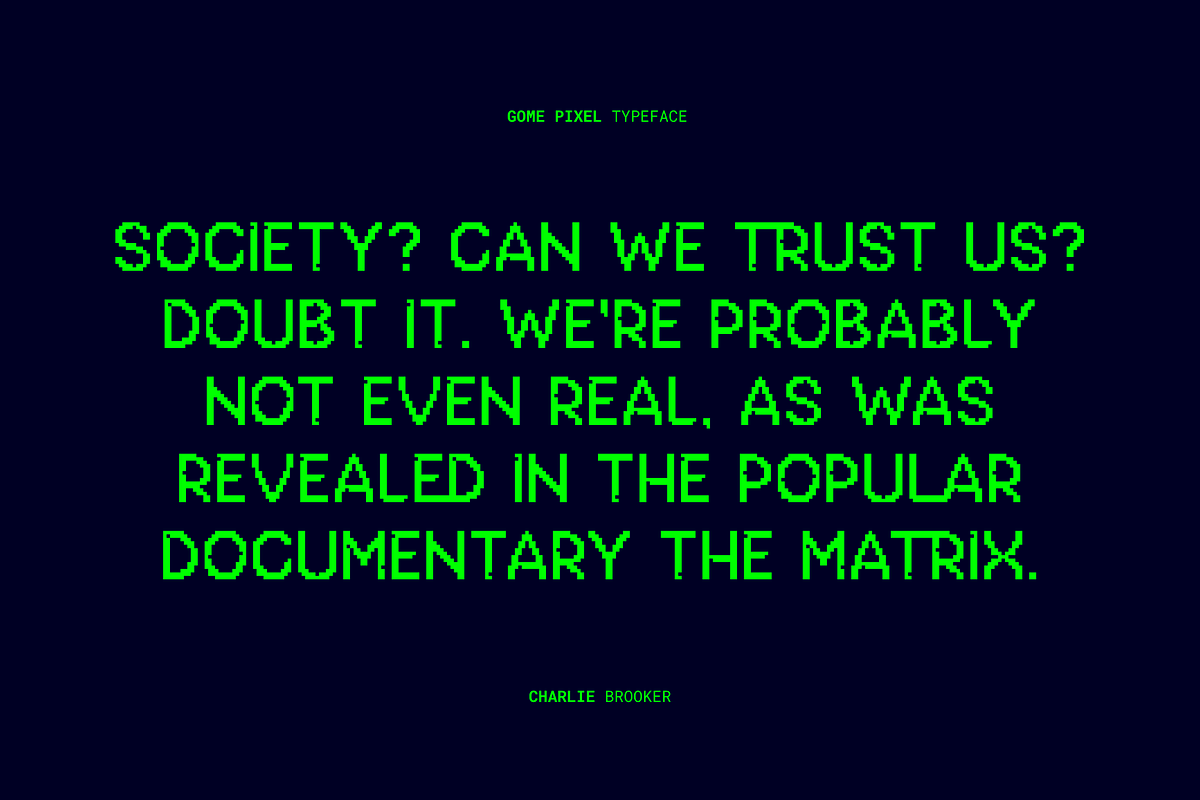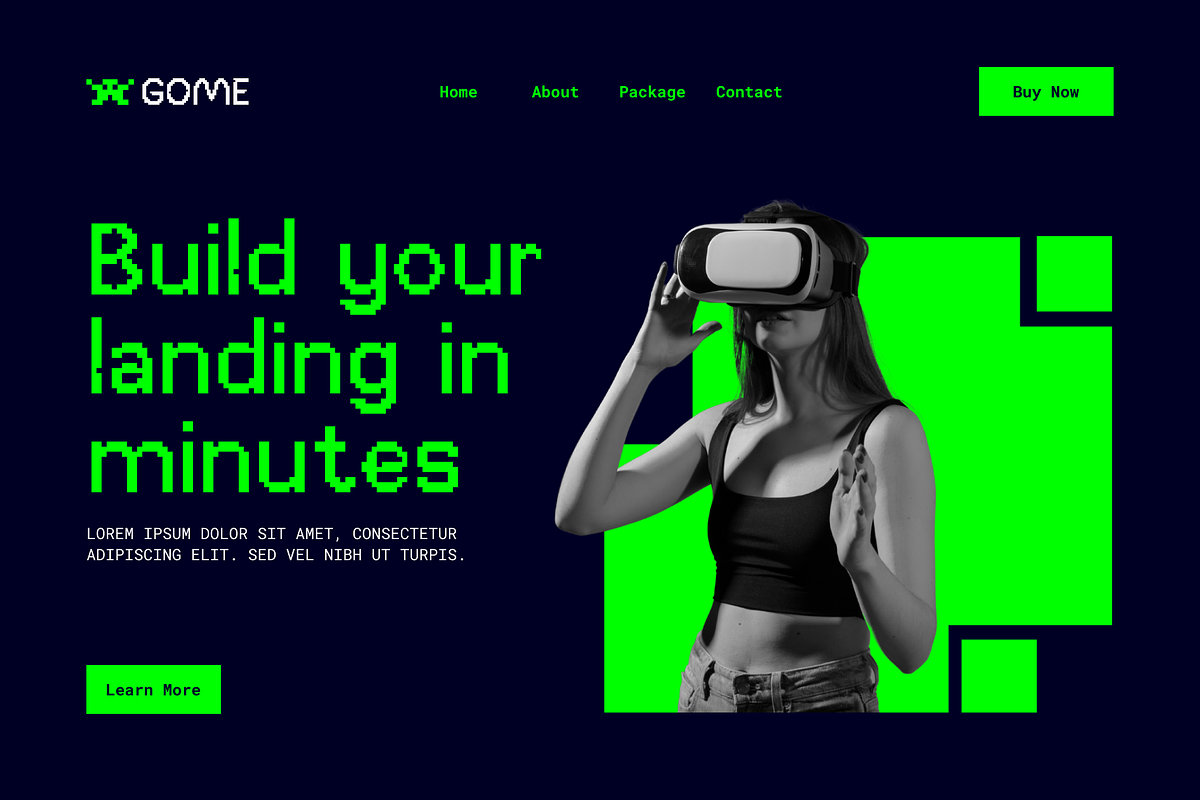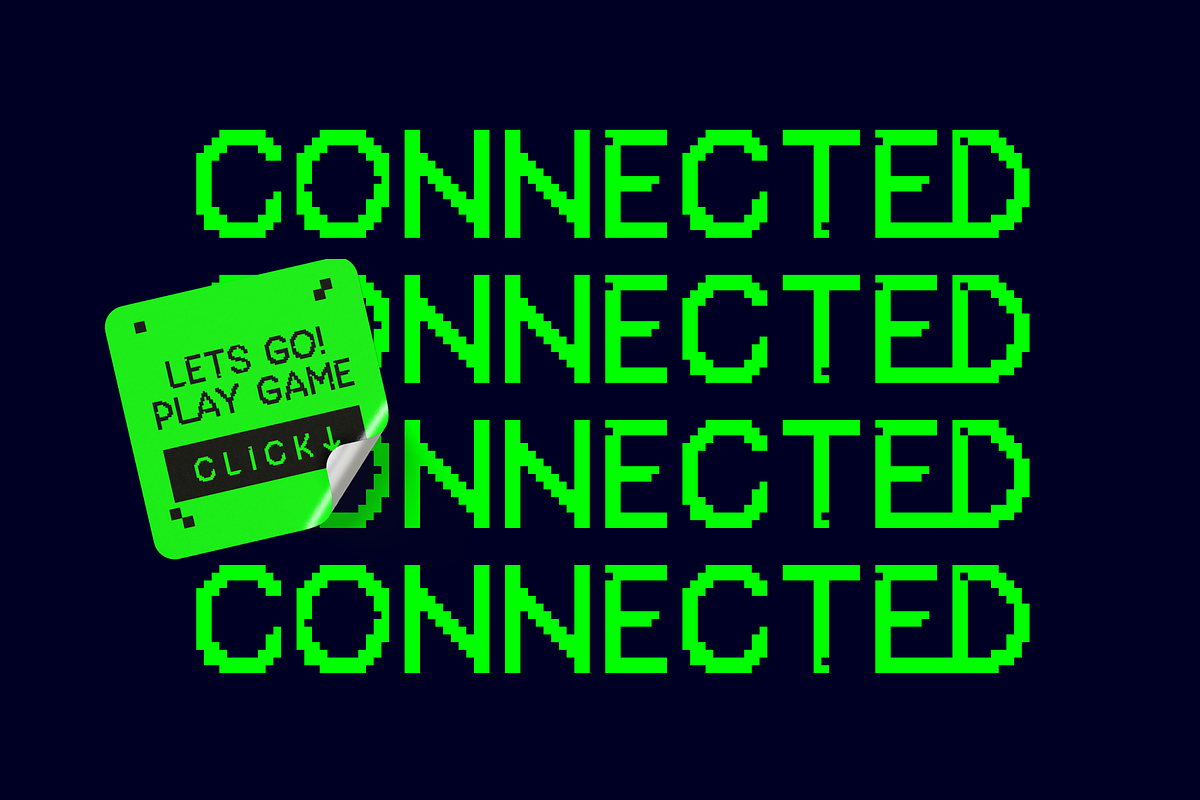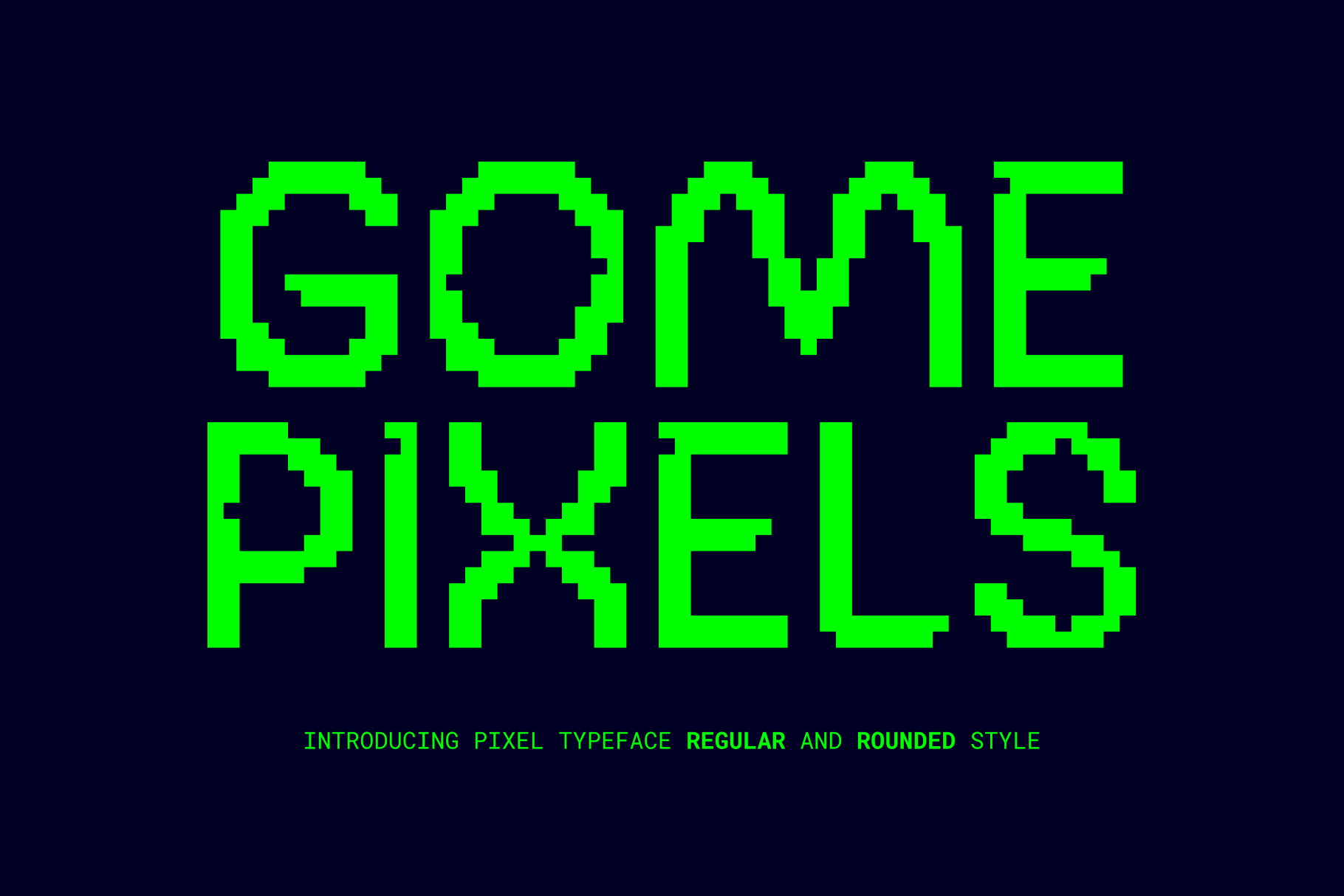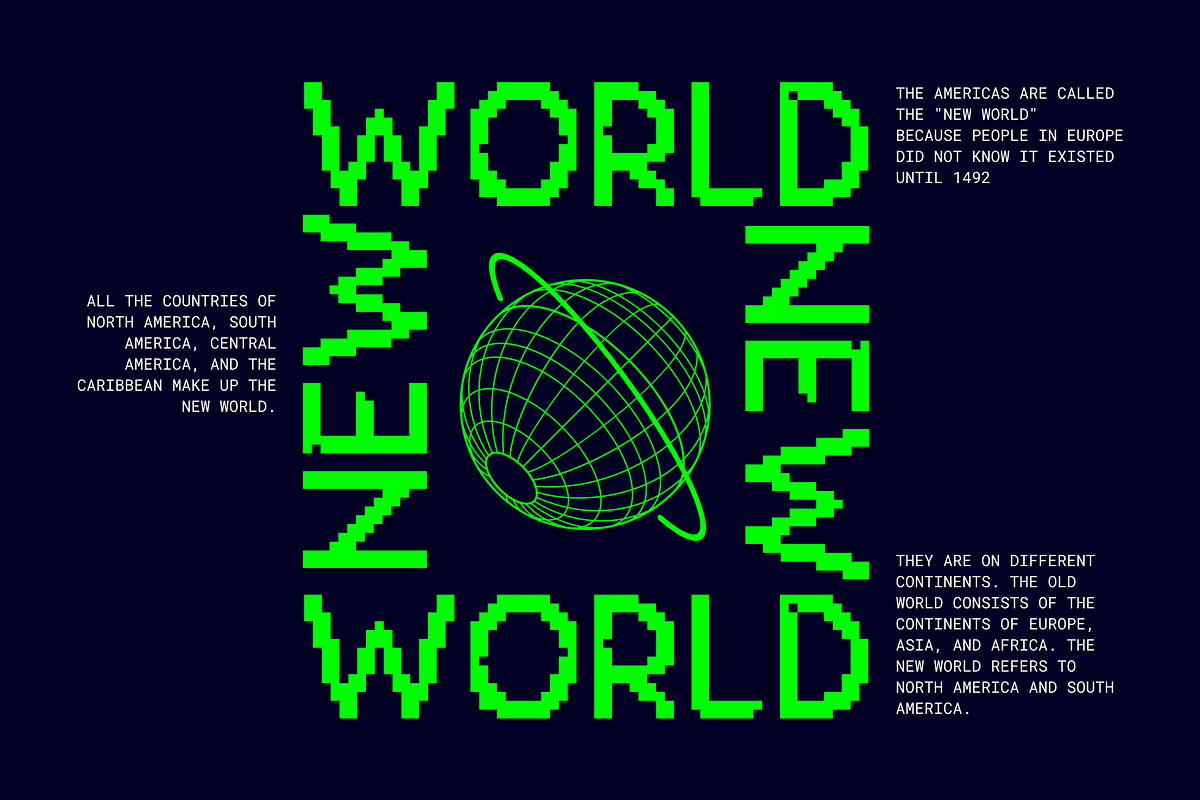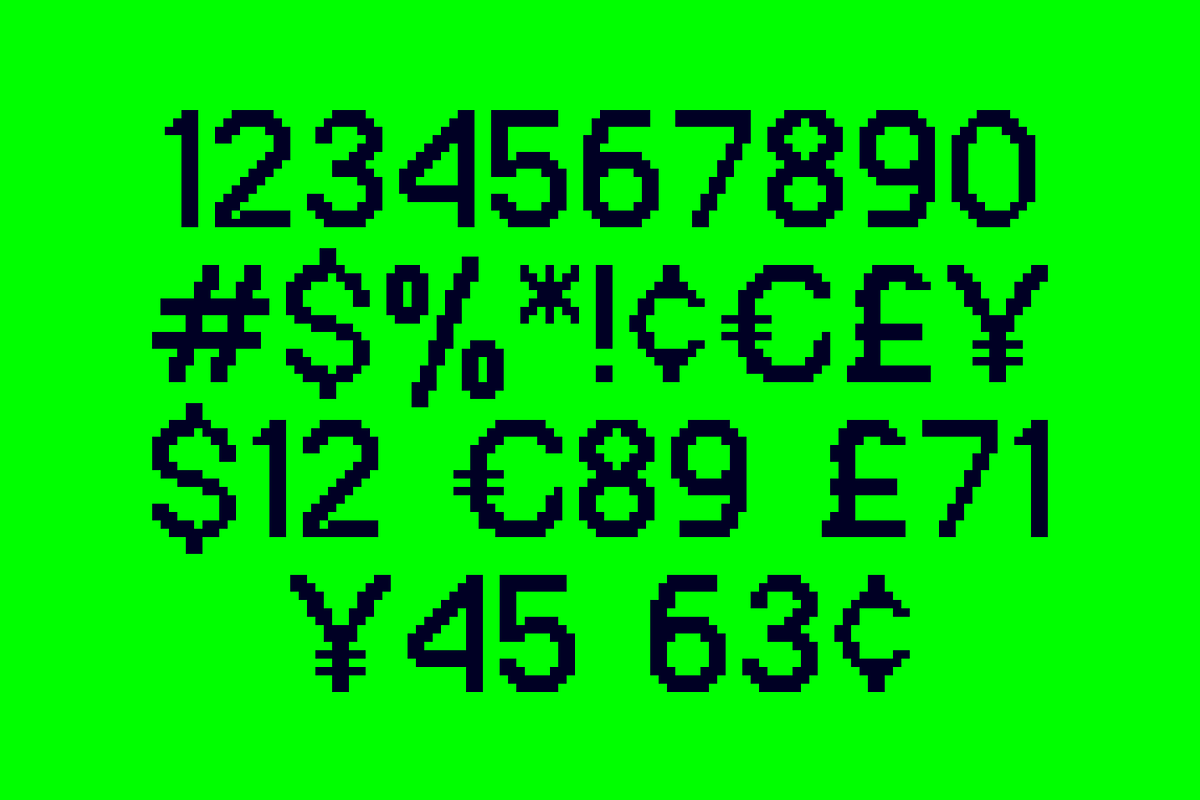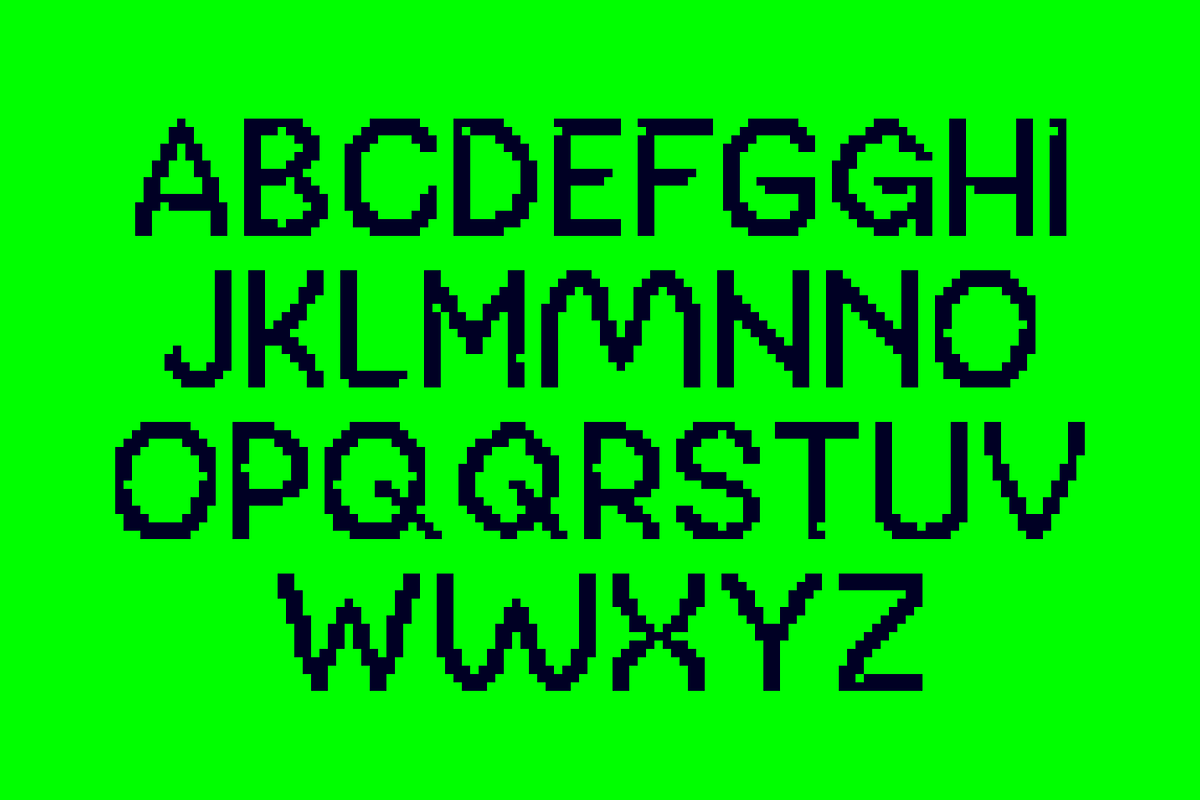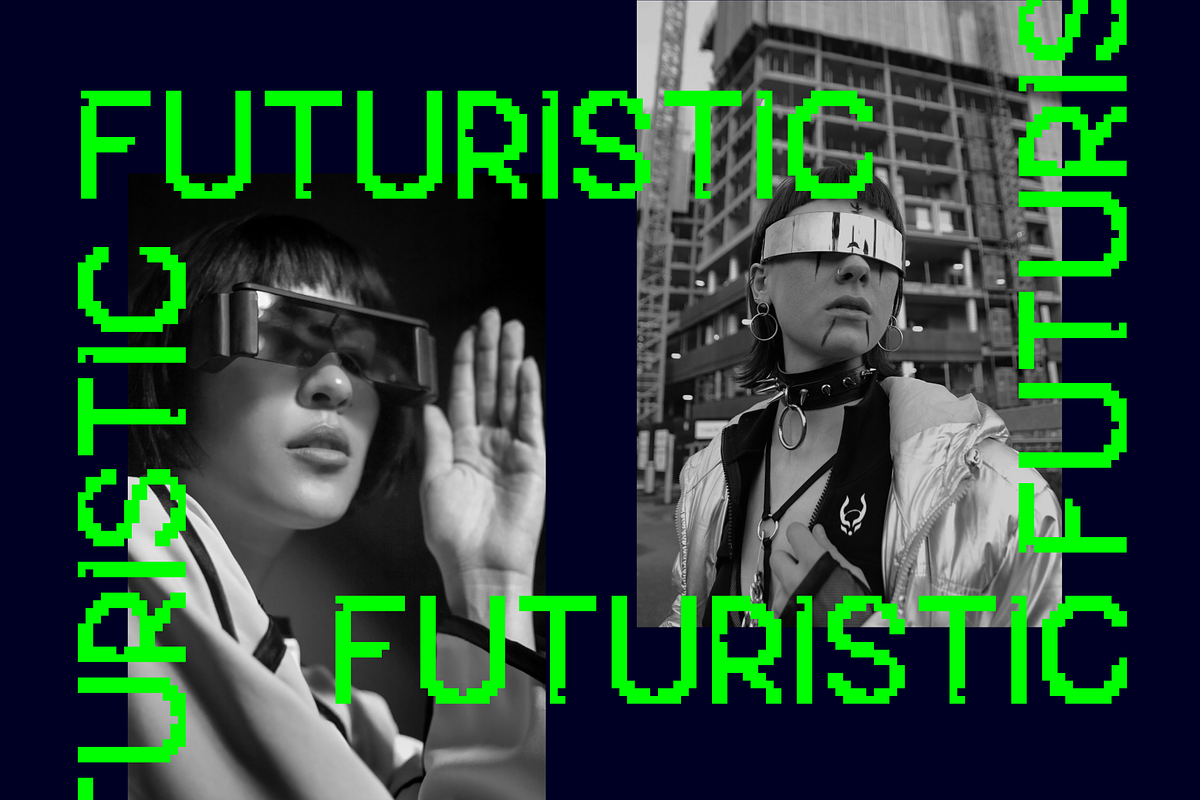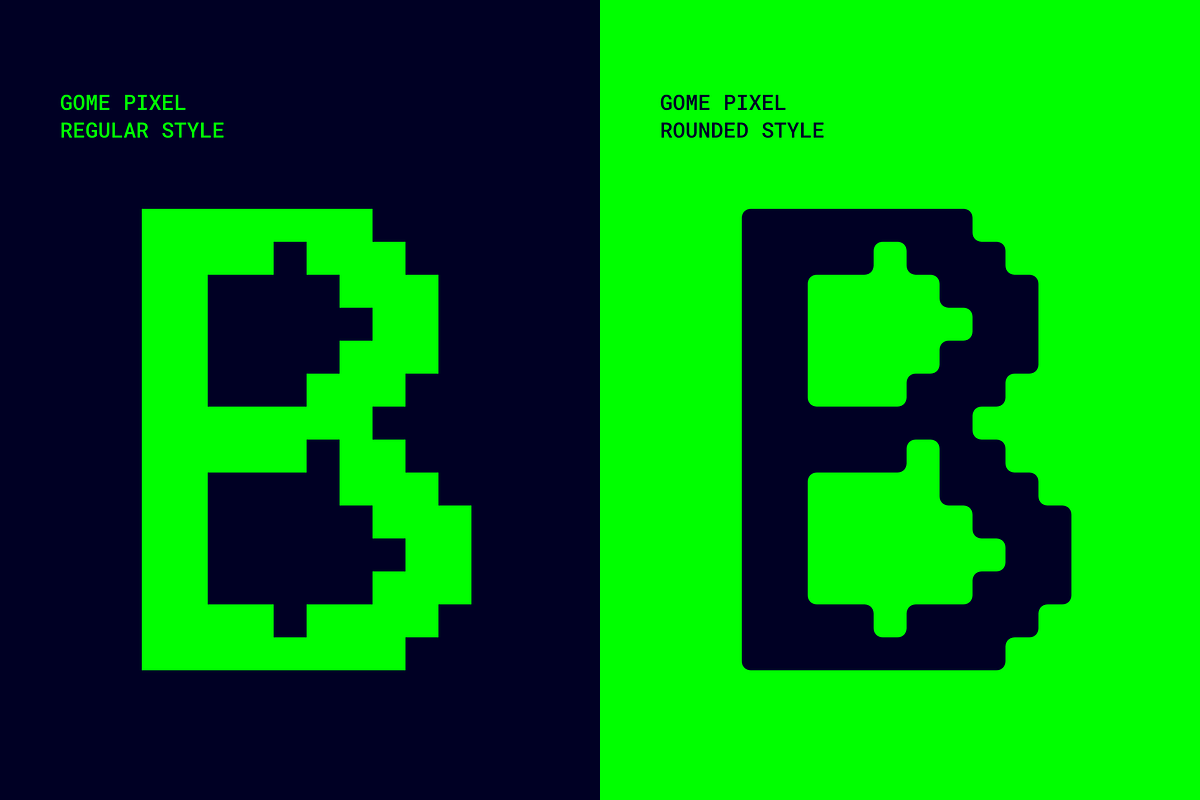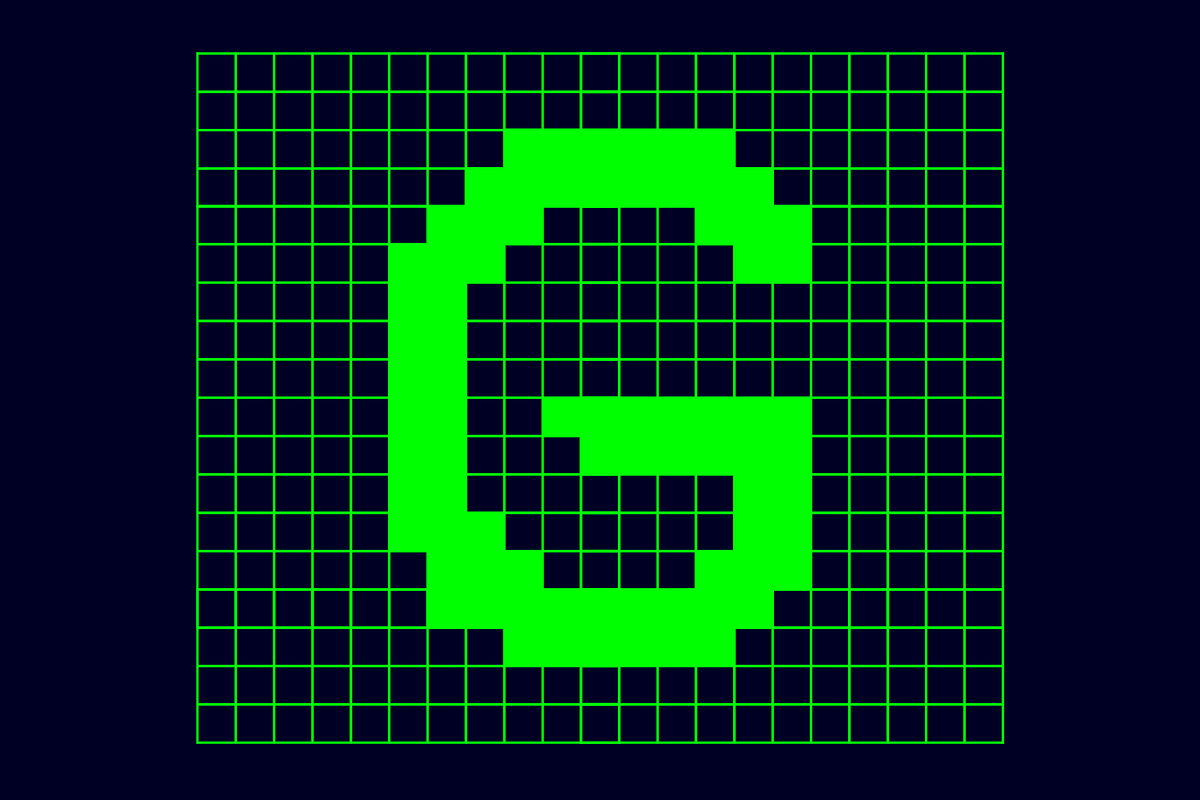
Gome Pixel Typeface
Gome Pixel is focused on the purpose of the display. It contains uppercase and lowercase characters. Suitable for use in retro game design and computing vibes. Gome Pixel is inspired by bitmap fonts
The entire typography has been designed to work on large sizes and display purposes such as branding, titles, thumbnails, posters, and animation. This font is available in 2 styles, regular and rounded